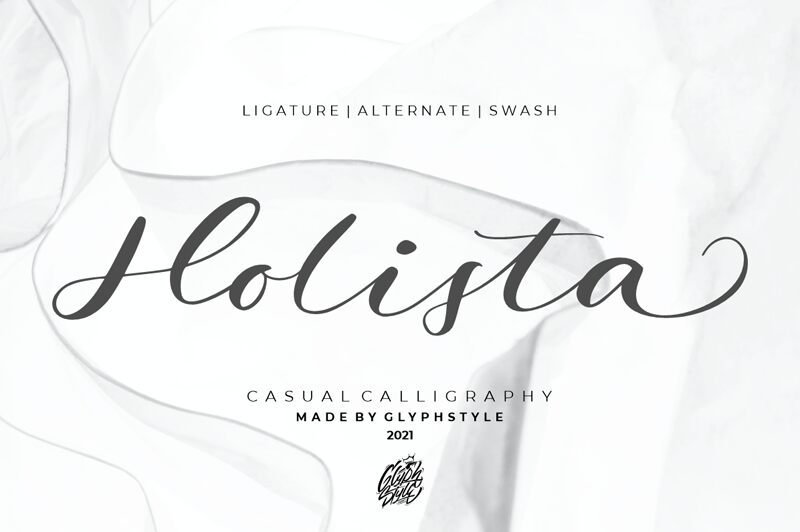
Holista, the semi-light and expanded casual calligraphy font designed by Glyphstyle, is a versatile typeface perfect for creative projects. Its flowing curves and elegant lines create a modern and sophisticated look that's suitable for a range of design styles. Use Holista in fashion branding to add a touch of luxury or in wedding invitations for an intimate feel. The playful yet refined style also makes it ideal for food packaging or beauty products. With its unique character, Holista is sure to make any project stand out from the crowd.